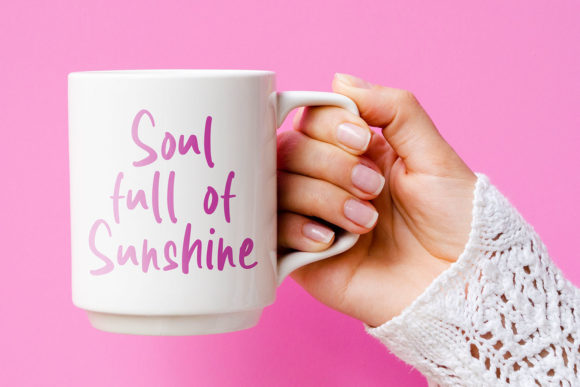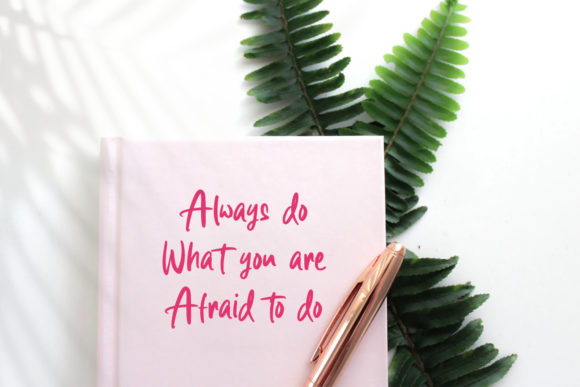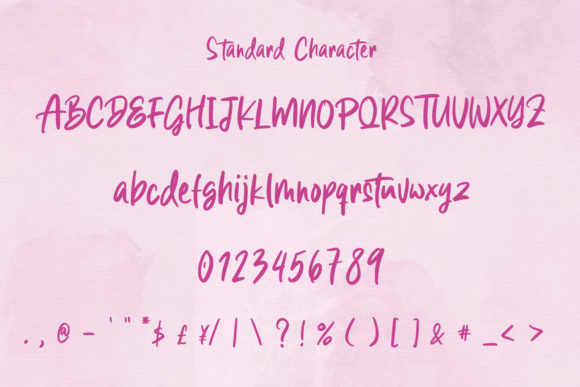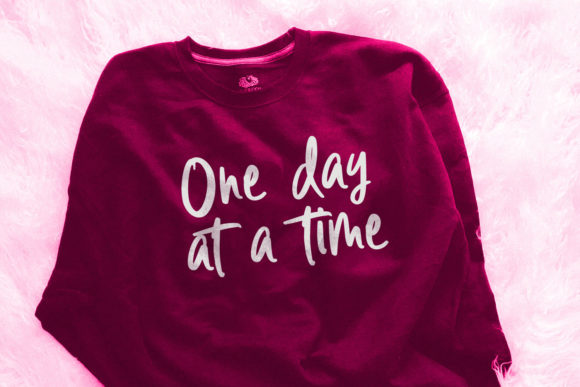
Amontha Geraldin Font: The Sweet and Trendy Script Font for Your Creative Projects
Are you a designer or crafter looking for a font that can add a touch of sweetness and trendiness to your creative projects? Look no further than Amontha Geraldin Font! This beautiful script font is perfect for creating gorgeous wedding invitations, stunning stationary art, eye-catching social media posts, and much more. In this article, we’ll dive into the features and benefits of Amontha Geraldin Font, and explore how you can use it to take your designs to the next level.
What is Amontha Geraldin Font?
Amontha Geraldin Font is a sweet and trendy script font that is sure to capture your heart. Its cute and joyful style makes it perfect for a wide range of creative projects, from wedding invitations and stationary art to social media posts and more. With its elegant and flowing script, Amontha Geraldin Font is sure to add a touch of sophistication and whimsy to any design.
Key Features of Amontha Geraldin Font
So, what makes Amontha Geraldin Font so special? Here are just a few of its key features:
• Sweet and Trendy Style: Amontha Geraldin Font has a unique and stylish aesthetic that is sure to turn heads. Its sweet and trendy style makes it perfect for designers and crafters who want to create modern and eye-catching designs.
• Elegant and Flowing Script: The script of Amontha Geraldin Font is elegant and flowing, making it perfect for creating beautiful wedding invitations, stationary art, and more.
• High-Quality Design: Amontha Geraldin Font is designed with high-quality and precision, ensuring that it looks great in any size or format.
Uses of Amontha Geraldin Font
Amontha Geraldin Font is a versatile font that can be used for a wide range of creative projects. Here are just a few ideas to get you started:
• Wedding Invitations: Amontha Geraldin Font is perfect for creating beautiful and elegant wedding invitations. Its sweet and trendy style makes it a great choice for modern weddings.
• Stationary Art: Use Amontha Geraldin Font to create stunning stationary art, including greeting cards, thank you cards, and more.
• Social Media Posts: Amontha Geraldin Font is a great choice for creating eye-catching social media posts. Its elegant and flowing script is sure to grab attention and engage your audience.
• Branding and Packaging: Amontha Geraldin Font can also be used for branding and packaging projects, including logos, labels, and more.
Tips for Using Amontha Geraldin Font
Here are a few tips for using Amontha Geraldin Font in your creative projects:
• Pair it with Other Fonts: Amontha Geraldin Font looks great when paired with other fonts. Try pairing it with a bold sans-serif font for a modern and stylish look.
• Experiment with Colors: Amontha Geraldin Font looks great in a variety of colors. Experiment with different colors and combinations to find the perfect look for your design.
• Use it for Headlines and Titles: Amontha Geraldin Font is perfect for headlines and titles. Use it to add a touch of elegance and sophistication to your design.
Amontha Geraldin Font is a sweet and trendy script font that is perfect for designers and crafters who want to create beautiful and eye-catching designs. With its elegant and flowing script, Amontha Geraldin Font is sure to add a touch of sophistication and whimsy to any design. Whether you’re creating wedding invitations, stationary art, social media posts, or more, Amontha Geraldin Font is a great choice. So why wait? Download Amontha Geraldin Font today and start creating your own gorgeous designs!